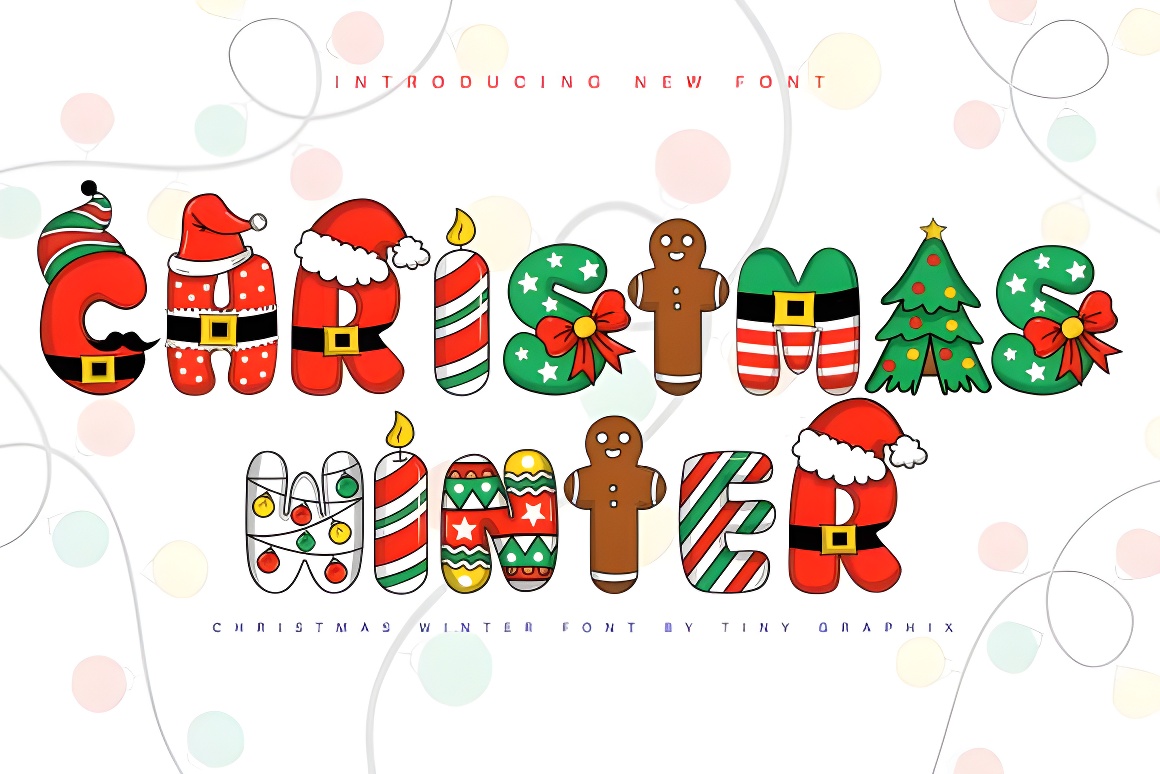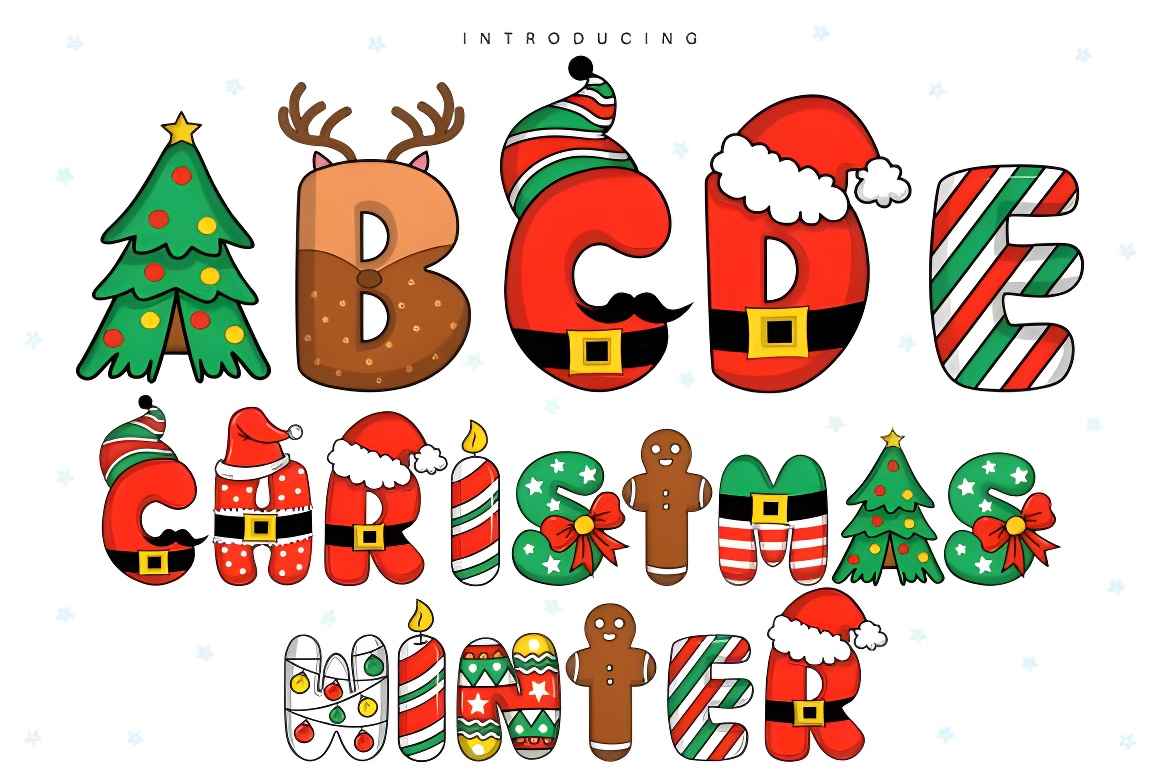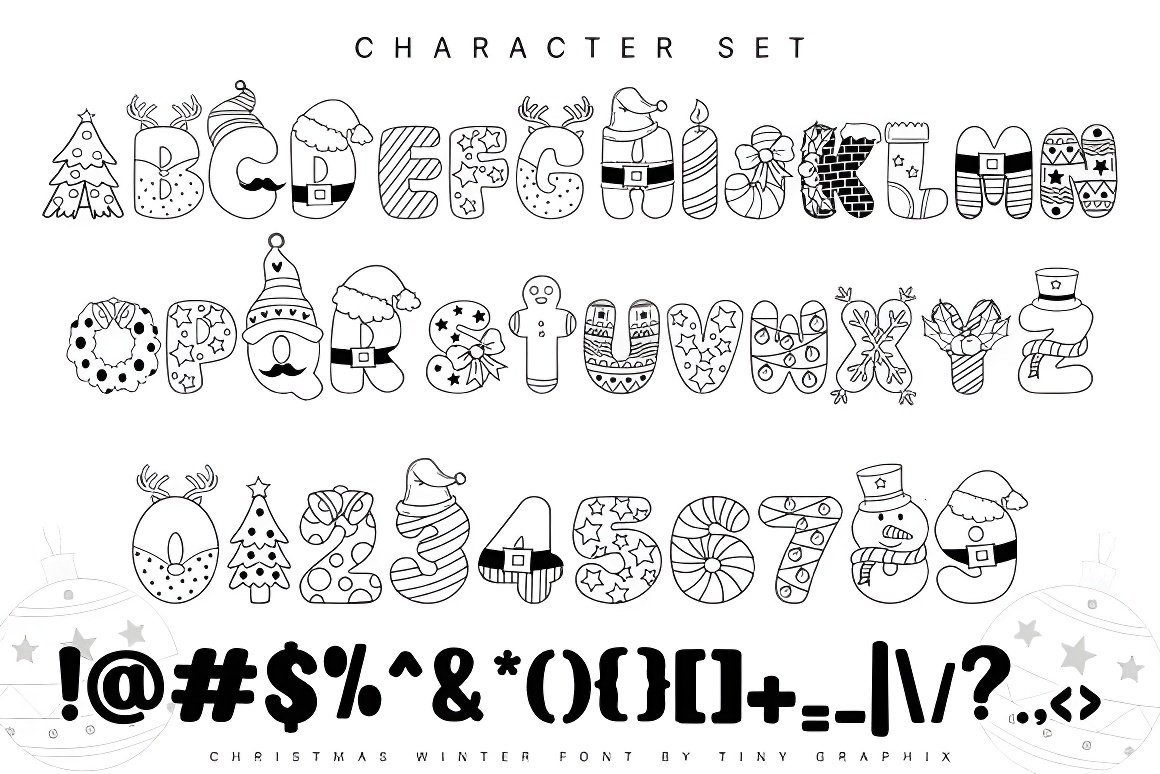
Christmas Winter Font - Festive Holiday Typeface Festive handcrafted Christmas font with joyful charm. Perfect for holiday greeting cards, gift tags, banners, social media & marketing. Spreads warmth & cheer!